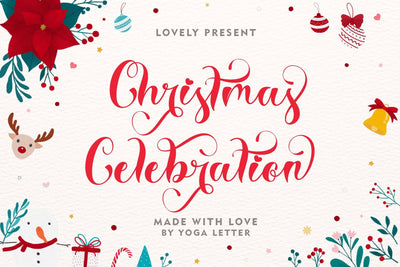
Christmas Celebration
"Christmas Celebration" is a beautiful and unique calligraphy font. This font is equipped with uppercase, lowercase alternates, swash, titling, multilingual support, ligatures, numerals and punctuations. Very suitable for Christmas, weddings, invitations, promotions, social media, and more.